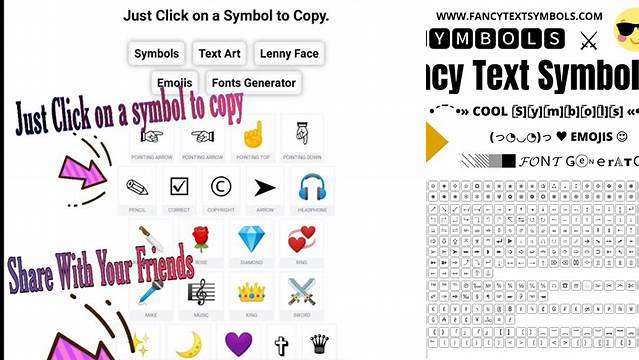
Stylish Fancy Symbols Fonts For Creative Designs
Hey everyone! Let's dive into the super cool world of fancy symbols fonts. These aren't your everyday Arial or Times New Roman, guys. We're talking about fonts packed with unique and visually appealing characters designed to spice up your text. Whether you're looking to add a touch of flair to your social media posts, create eye-catching designs, or simply express yourself in a more creative way, fancy symbols fonts are your secret weapon. In this article, we'll explore everything you need to know, from where to find these awesome fonts to how to use them effectively. Get ready to transform your ordinary text into something extraordinary!
1. Understanding Fancy Symbols Fonts: What Makes Them Special?
So, what exactly makes fancy symbols fonts so special? Well, think of them as a creative upgrade to your standard fonts. They go beyond the basic alphabet and numbers, offering a vast array of symbols, glyphs, and special characters that can dramatically change the look and feel of your text. These fonts often include elements like decorative flourishes, unique shapes, mathematical symbols, currency symbols, and even custom-designed icons. The key is their ability to add visual interest and personality. Unlike regular fonts, which prioritize readability, fancy symbols fonts are all about aesthetics. They allow you to express yourself in ways that plain text simply can't. For instance, you can use them to create logos, watermarks, or personalized messages. Some fonts even feature symbols that mimic real-world objects or concepts, making them incredibly versatile. You can find fonts with everything from hearts and stars to musical notes and scientific symbols. The possibilities are virtually endless! Ultimately, fancy symbols fonts are designed to catch the eye and make a statement. They help your text stand out from the crowd and convey a specific mood or theme. Whether you're aiming for elegance, playfulness, or a touch of mystery, there's a fancy symbols font out there to match your vision. It's all about experimenting and finding the right combination of characters to bring your creative ideas to life. They are designed to be fun and engaging. They also are a powerful tool for designers and creatives who want to add a unique touch to their work. They make it easier for you to communicate messages through images rather than words, so that you can make your creations unique.
1.1. Types of Fancy Symbols Fonts: A Diverse Palette
Within the realm of fancy symbols fonts, there's an incredible diversity, catering to a wide range of styles and needs. Let's explore some of the most popular types and what makes them unique. First, we have the decorative fonts. These are often used to add flair and embellishment to your text. They can include elegant swirls, ornate flourishes, and delicate details, perfect for invitations, wedding stationery, or anything that requires a touch of sophistication. Then there are the dingbat fonts. These are collections of symbols and icons instead of letters and numbers. They are super handy for creating illustrations, adding visual elements to your website, or designing custom icons. Dingbat fonts can cover a vast range of themes, from holiday-themed symbols to geometric shapes and abstract designs. The next category includes mathematical and scientific symbols fonts. If you're working on anything related to math, science, or engineering, these are your go-to. They offer a comprehensive set of symbols, from fractions and equations to Greek letters and special characters. Another important type is the currency symbols fonts. These fonts provide a variety of currency symbols from different countries. It's really useful if you are designing for international markets or need to display financial information. In addition to these, you'll find specialized fonts for things like music notation, astrological symbols, and even wingdings, the classic font that's full of icons and symbols. The beauty of this diversity is that you can mix and match to create a unique aesthetic. The vast array of available options lets you find something that perfectly fits your style and purpose. Experimenting with different fonts lets you discover new ways to express yourself and communicate your ideas. You can elevate your text and leave a lasting impression on your audience by selecting the right fancy symbols fonts. The more you experiment the better your creations will be.
1.2. Benefits of Using Fancy Symbols Fonts
Using fancy symbols fonts offers a whole bunch of benefits, and it's not just about making your text look pretty. One of the biggest advantages is enhancing visual appeal. These fonts immediately make your text more interesting and engaging, drawing the eye and capturing attention. Whether it's a social media post, a website header, or a presentation, fancy symbols fonts can make your message stand out from the crowd. Besides, these fonts add personality and expressiveness. They let you convey a specific mood, theme, or tone that regular fonts just can't match. You can use elegant fonts to create a sense of sophistication, playful fonts to inject some fun, or mysterious fonts to add intrigue. Another major benefit is that it enhances branding. By using unique symbols and characters, you can create a distinctive brand identity that sets you apart from your competitors. A well-chosen font can become a key element of your brand's visual language, helping people recognize and remember your content. Fancy symbols fonts also can boost creativity and design possibilities. They offer a wealth of visual elements that can be incorporated into your designs. You can create logos, icons, and graphics that add visual interest and improve the overall composition. Beyond the aesthetics, these fonts can improve communication. Symbols can instantly convey meaning and ideas that are difficult to express with words alone. It can be especially useful for creating quick and easy-to-understand infographics or instructions. Overall, using fancy symbols fonts is a simple but effective way to make your content more engaging, visually appealing, and memorable. By taking advantage of the unique characters and symbols, you can elevate your design and leave a lasting impression.